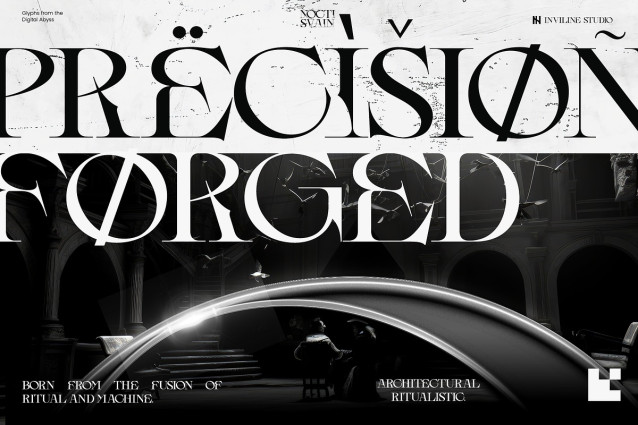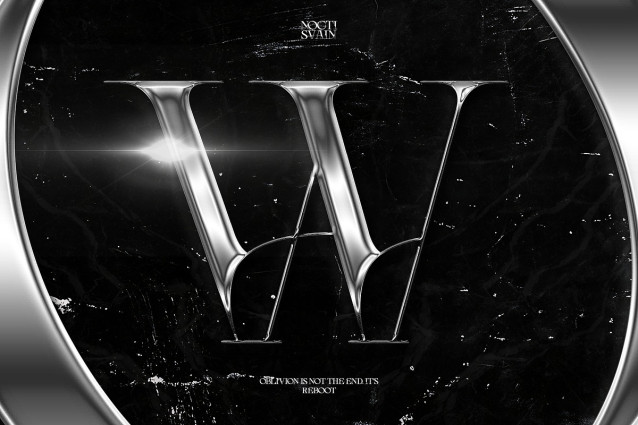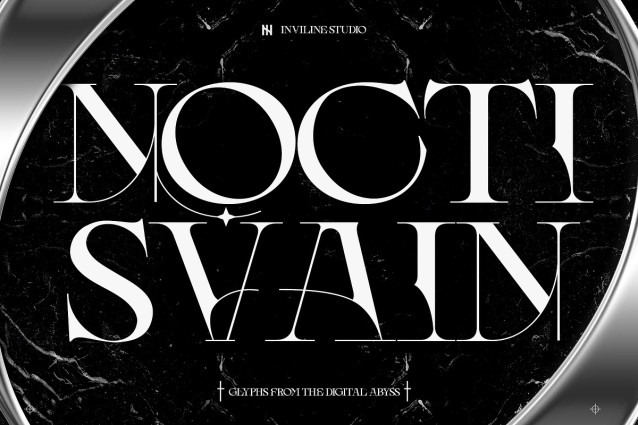
Noctisvain Font
Noctisvain Font is a high-contrast serif typeface with brutal elegance and experimental forms. Inspired by gothic luxury, digital decay, and fashion minimalism — it’s crafted for designers who want to make a bold statement.